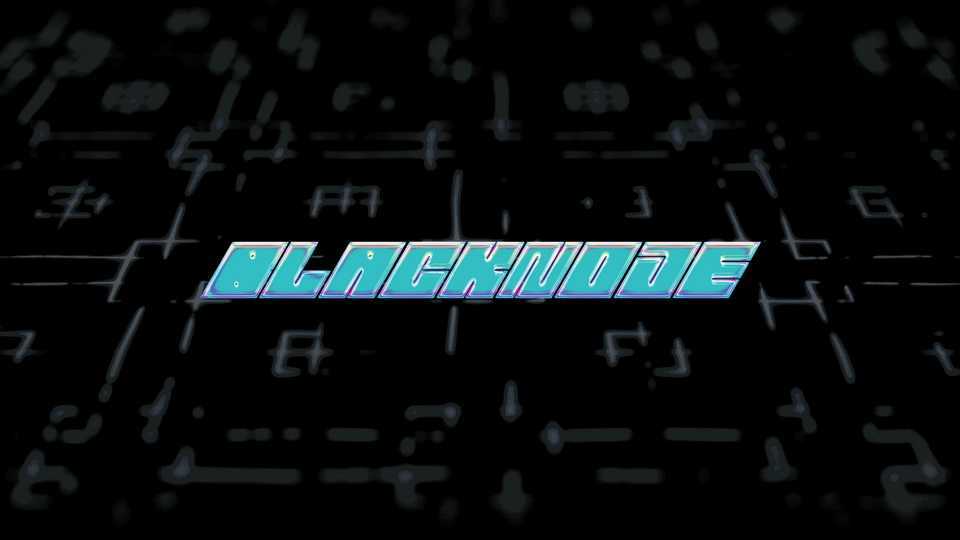
Download Blacknode font, a loud, rectangular, block typeface with a cyberpunk, sci-fi style. Blacknode has a futuristic look, retaining crisp, slanted letterforms, adding a streamlined, racing element while offering speed, and is well suited for sports or technology projects.